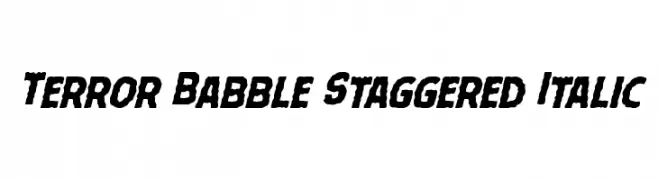
A bold, geometric font with a modern and structured design.
A bold, textured font with a distressed, tinsel-like appearance.
A playful, knitted sweater-style font with a festive, textured appearance.
A futuristic, angular font with a bold, tech-inspired design.
A bold, dynamic handwritten font with textured strokes and energetic flow.
A retro, pixelated font inspired by early digital and arcade games.
A bold, structured serif font with a geometric influence.
A playful, handwritten font with rounded, uniform strokes.
A modern, italicized font with clean lines and balanced proportions.
A bold, italicized sans-serif font with a modern and dynamic style.
A bold, 3D italic font with outlined characters and a futuristic style.
A bold, 3D geometric font with strong outlines and a modern feel.
A bold, geometric, and condensed font with a modern and futuristic style.
A bold, angular font with a futuristic and dynamic semi-italic style.
A bold, angular font with a futuristic and dynamic style.
A bold, geometric font with a futuristic and edgy design.
A bold, graffiti-inspired font with a hand-drawn, urban style.
A pixelated, retro-style font inspired by classic 8-bit video games.
A futuristic, geometric font with a digital, tech-inspired design.
A bold, jagged, and italic font with a dynamic, edgy appearance.
A bold, italicized font with characters encased in hexagons, offering a modern and dynamic style.
A bold, geometric font with characters enclosed in hexagons, perfect for decorative projects.
A bold, italic font with sharp, angular edges and a dynamic style.
A bold, futuristic font with geometric and angular design.
A bold, geometric font with a 3D effect and modern aesthetic.
A rugged, distressed font with jagged edges and a bold, organic texture.
A bold, geometric font with a modern, digital aesthetic.
A vintage typewriter-style font with a textured, distressed appearance.
A bold, gothic-inspired font with sharp serifs and high contrast.
A bold, modern sans-serif font with clean lines and strong presence.
A bold, rounded, and modern font ideal for headlines and logos.
A pixelated, retro-style font with a blocky, digital aesthetic.